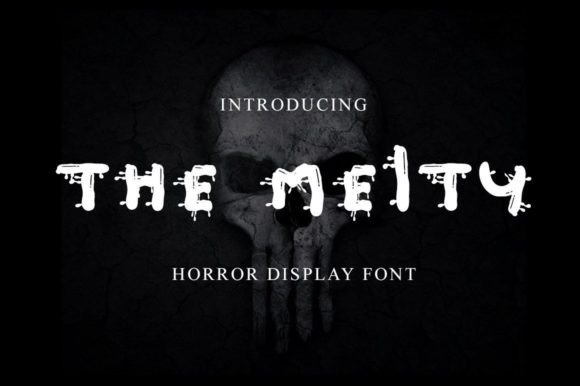
Dive into the chilling depths of "The Melty Font" – a haunting display font that will send shivers down your spine and leave your designs marked with the essence of horror. Crafted by the masterminds at Mr.Soon Design, this font is not for the faint of heart.
Imagine the spine-tingling ambiance of a haunted house, the eerie silence of a midnight movie – that's the power that "The Melty Font" holds. Its twisted and distorted letterforms dance across your screen, inviting you to embrace the darkness within.
This font is a symphony of terror, perfect for conjuring up nightmares and creating designs that will make your audience tremble. Whether it's bone-chilling invitations, spine-chilling postcards, or haunting posters, "The Melty Font" will add a touch of the macabre to any Halloween event or horror-themed project.
Each letter is a masterpiece of fear, dripping with the essence of the unknown. "The Melty Font" is not just a font – it's a gateway to a world of shadows and whispers, where the ordinary becomes extraordinary and the familiar transforms into the terrifying.